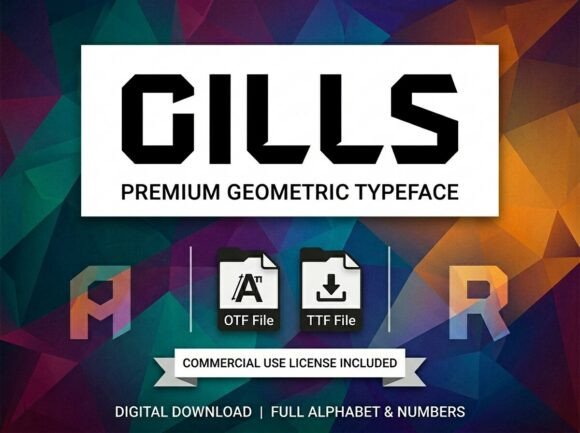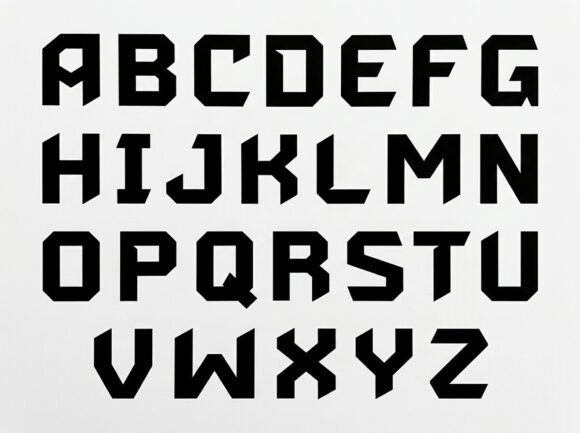
Introducing Gills Font: A Stunning Decorative Display Font
Are you tired of using the same old fonts for your designs? Do you want to make a statement and stand out from the crowd? Look no further than Gills Font, a unique and artistic decorative display font that’s sure to turn heads. In this article, we’ll take a closer look at what makes Gills Font so special and how it can elevate your designs to the next level.
Gills Font is a stunning decorative display font designed to be the center of attention. With its unique artistic elements and strong visual personality, this font is perfect for creators who want to break away from the ordinary. Whether you’re working on a bold headline, artistic logo, or creative packaging, Gills Font is versatile enough to make a lasting impression while maintaining a professional and polished finish.
This is a crucial detail to keep in mind when working with Gills Font. Because it’s an all-caps font, it’s perfect for creating bold statements and eye-catching designs. However, it’s not suitable for body text or other applications where lowercase letters are necessary.
Gills Font is a dream come true for designers and crafters who want to add a touch of personality to their work. With its unique and artistic elements, this font is perfect for:
- Bold Headlines – Make a statement with eye-catching headlines that demand attention.
- Artistic Logos – Create a lasting impression with a custom logo that showcases your brand’s personality.
- Creative Packaging – Stand out on store shelves with packaging that pops.
Whether you’re working on a personal project or a client’s, Gills Font is sure to help you create something truly special.
Tips for Using Gills Font
To get the most out of Gills Font, here are a few tips to keep in mind:
- Use it sparingly – Because Gills Font is a decorative display font, it’s best to use it sparingly to avoid overwhelming your design.
- Experiment with colors and textures – Gills Font looks amazing with bold colors and textures. Don’t be afraid to get creative and try new things.
- Pair it with a simple font – For body text or other applications where readability is key, pair Gills Font with a simple font to create contrast and visual interest.
Gills Font is a stunning decorative display font that’s sure to elevate your designs to the next level. With its unique artistic elements and strong visual personality, this font is perfect for creators who want to break away from the ordinary. Whether you’re working on a bold headline, artistic logo, or creative packaging, Gills Font is versatile enough to make a lasting impression while maintaining a professional and polished finish. So why wait? Get your hands on Gills Font today and start creating something truly special!